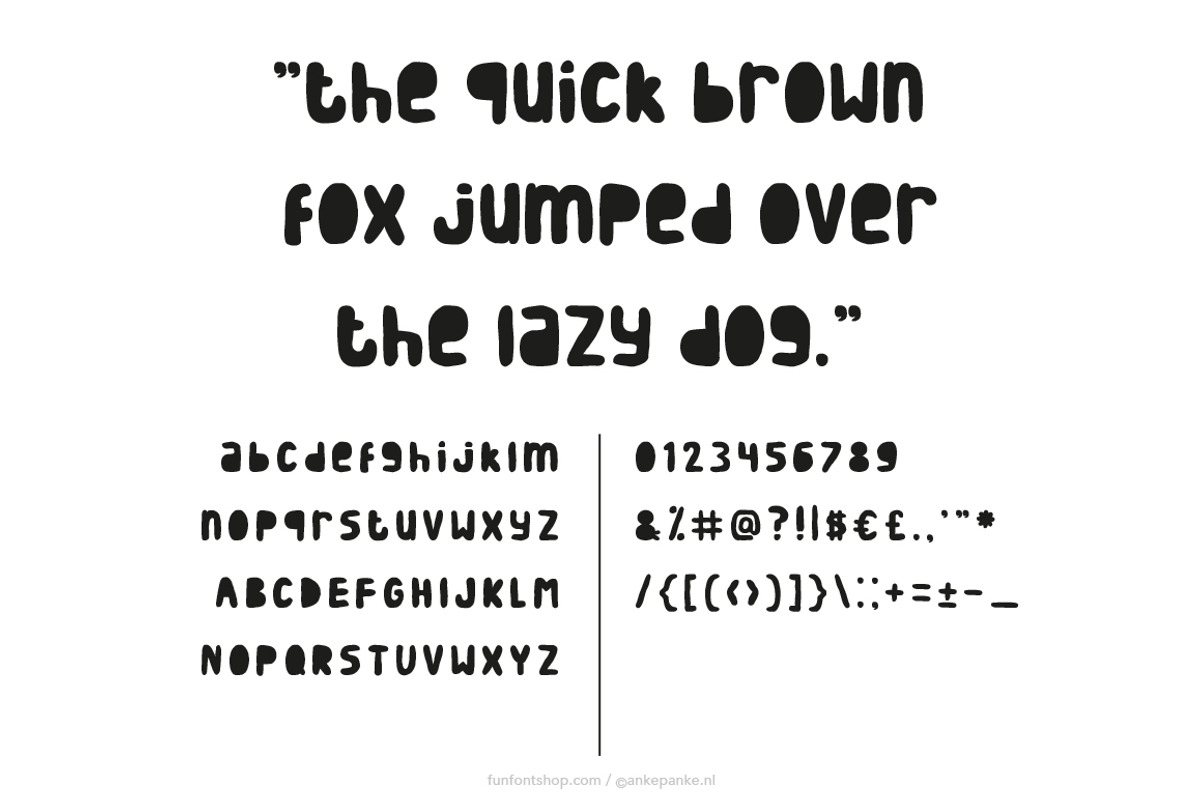
Sweet Pancakes handmade Font
Sweet Pancakes handmade Font by Fun Font Shop is a font selected for branding, posters, packaging, typography.
Why Sweet Pancakes handmade Font is worth a look
Sweet Pancakes handmade Font by Fun Font Shop fits naturally into Branding, posters, packaging, typography.